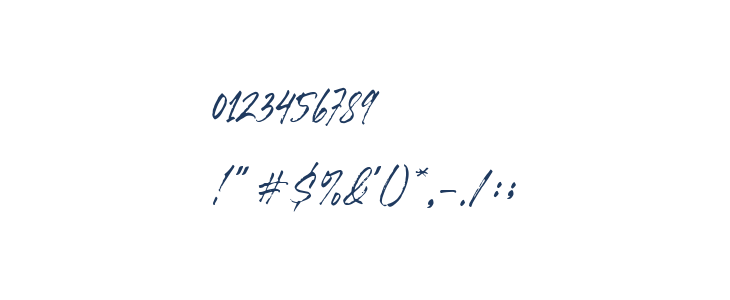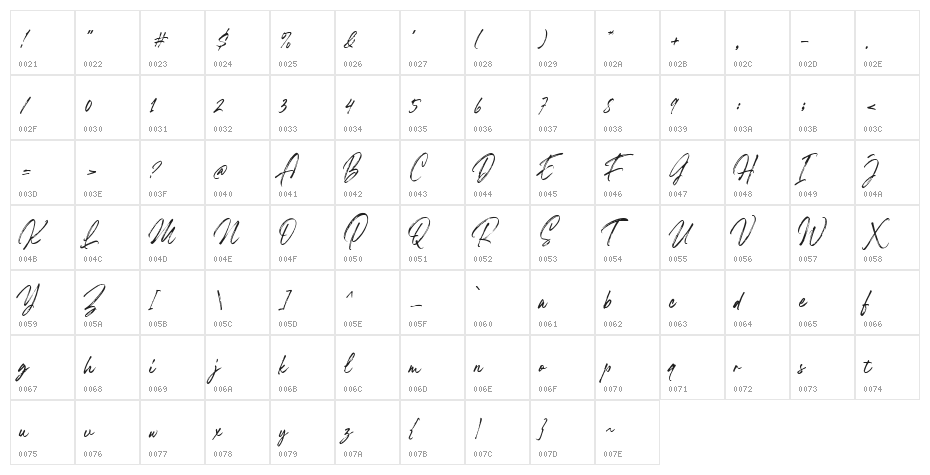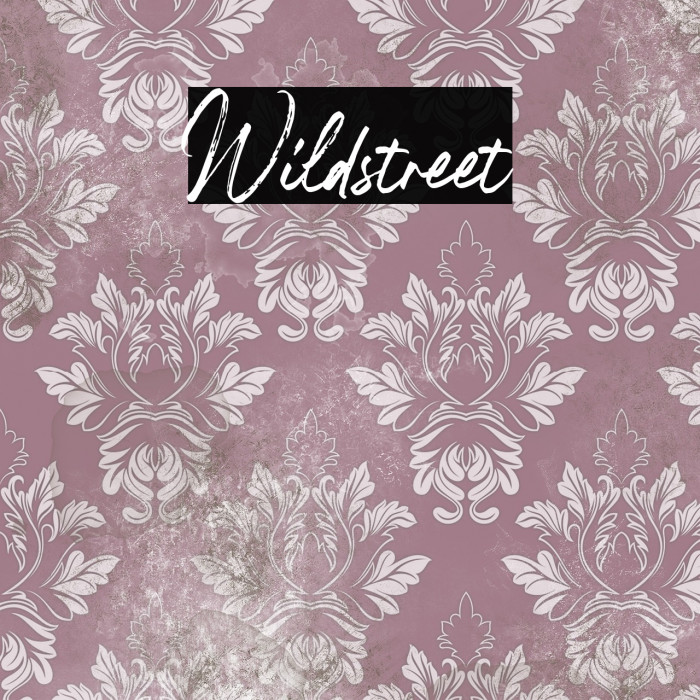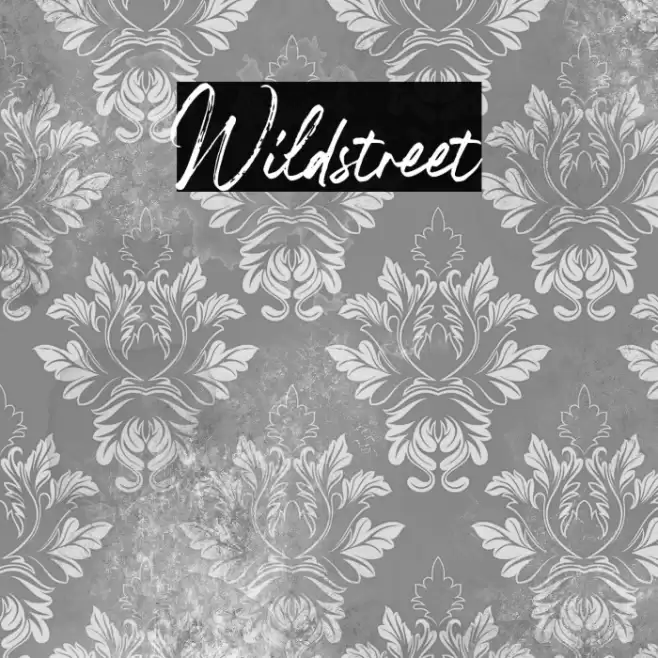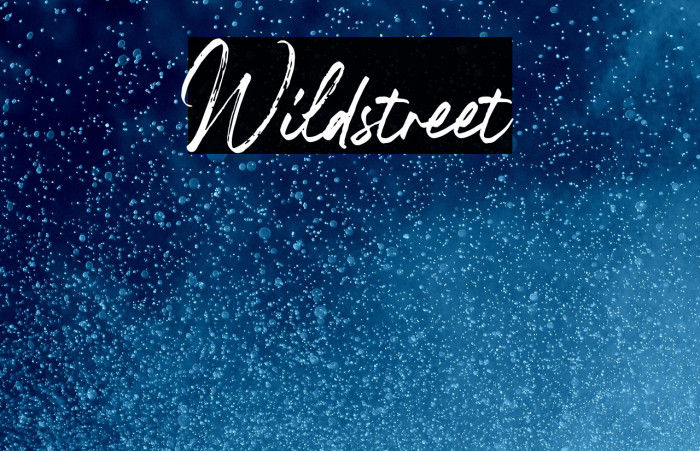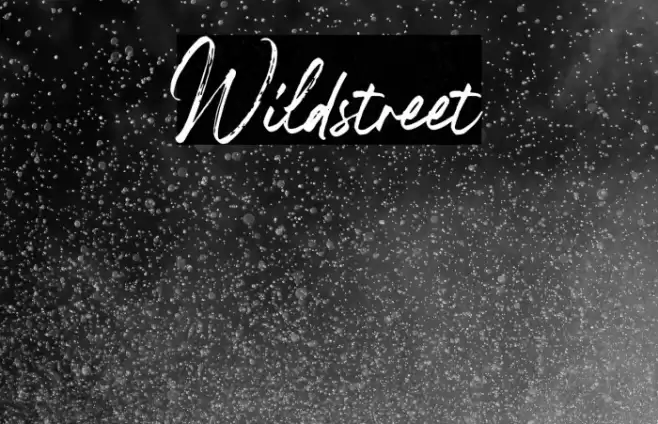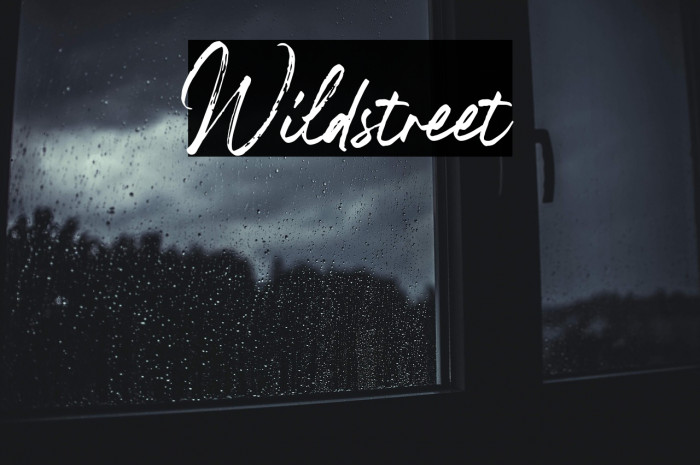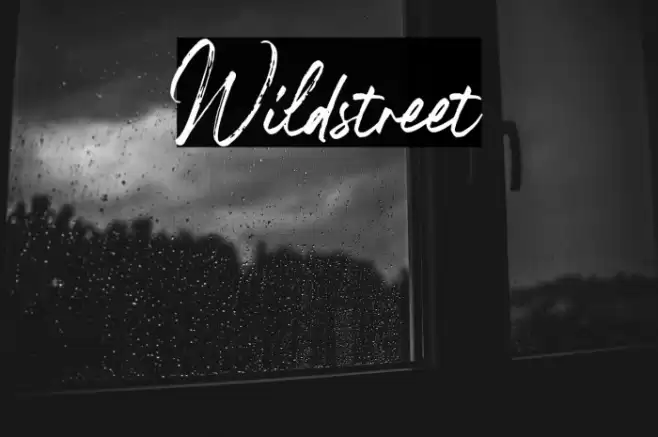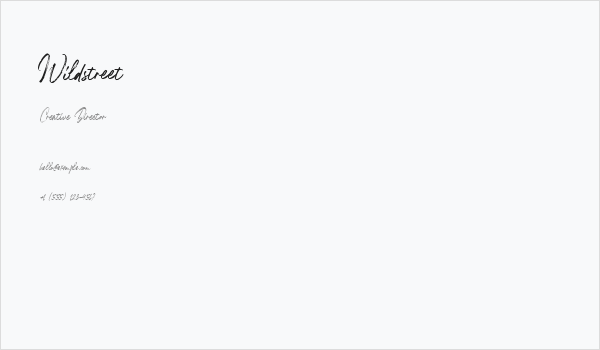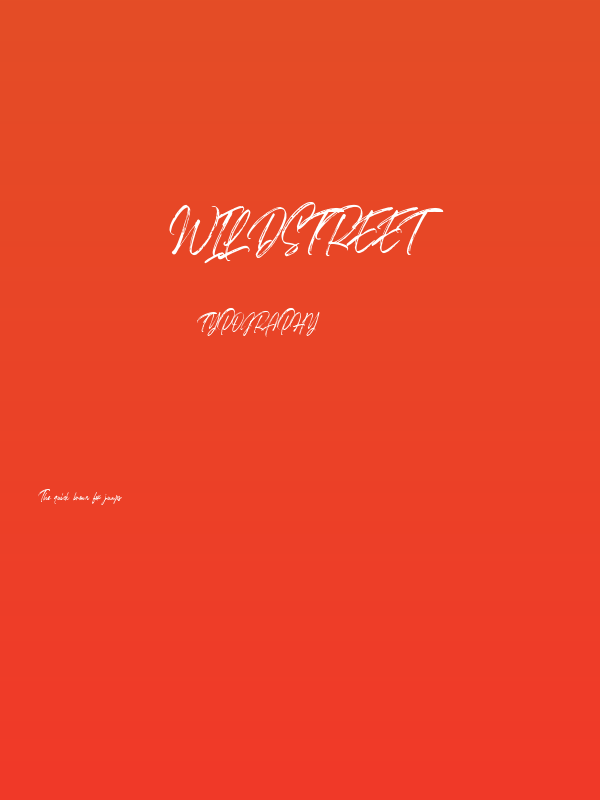
Wildstreet Font
Wildstreet Description
This font exudes a dynamic and energetic vibe, characterized by its fluid, cursive style that mimics the natural flow of handwriting. The strokes are bold and expressive, with a noticeable slant that adds a sense of motion and urgency. The uppercase letters are particularly striking, with dramatic flourishes and loops that create a sense of elegance and flair. The lowercase letters maintain a consistent style, offering a harmonious balance between readability and artistic expression. Numbers and special characters are crafted with the same attention to detail, ensuring a cohesive look across all text elements.
| Proposed Projects | Ideal for branding, logo design, invitations, and any project requiring a personal, artistic touch. |